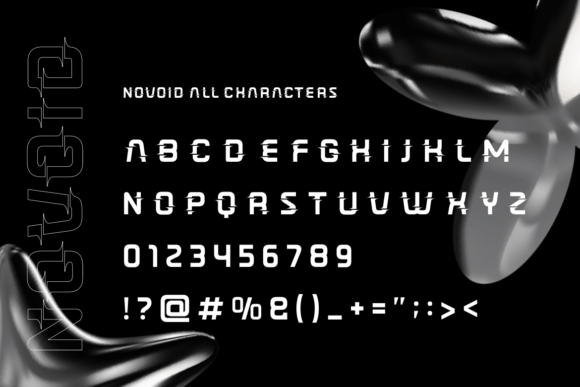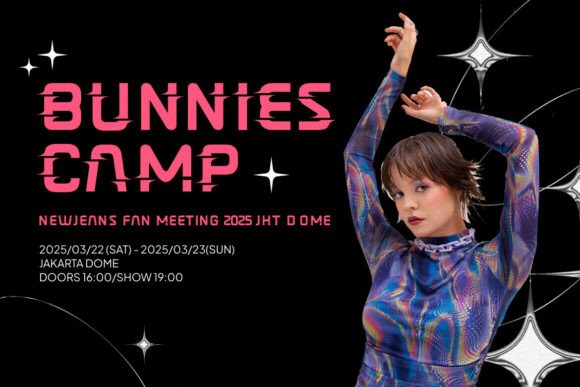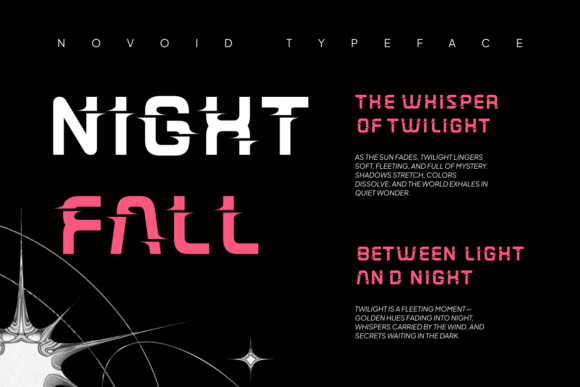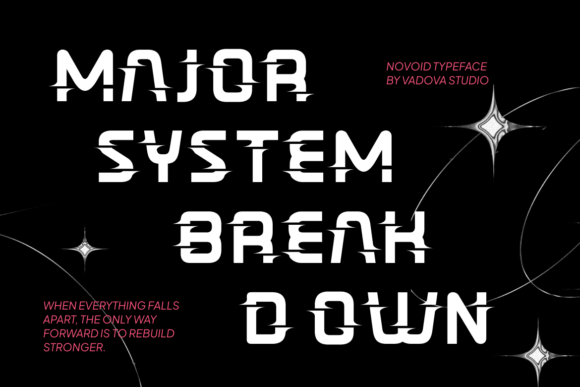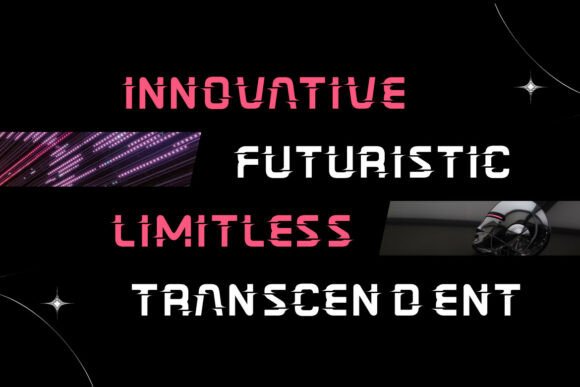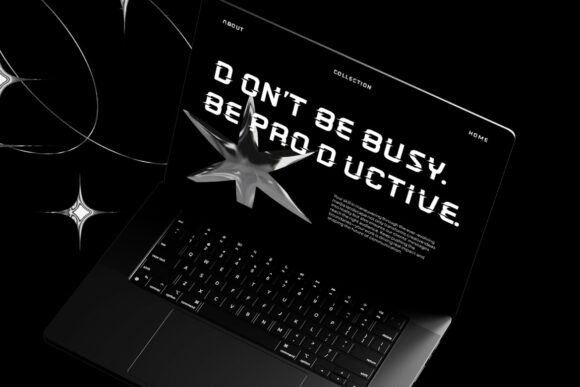
Introduction to Novoid Font
Elevate your designs with Novoid Futuristic Glitch Font, a futuristic glitch typeface that combines sharp digital aesthetics with bold sci-fi energy.
Its broken and distorted letterforms evoke a sense of digital decay, making it perfect for cyberpunk designs, tech branding, experimental posters, and edgy music visuals Novoid delivers a unique typographic voice that feels both chaotic and structuredโideal for projects that need a bold, high-tech, and rebellious style.
Key Features of Novoid Font
Why Choose Novoid Font?